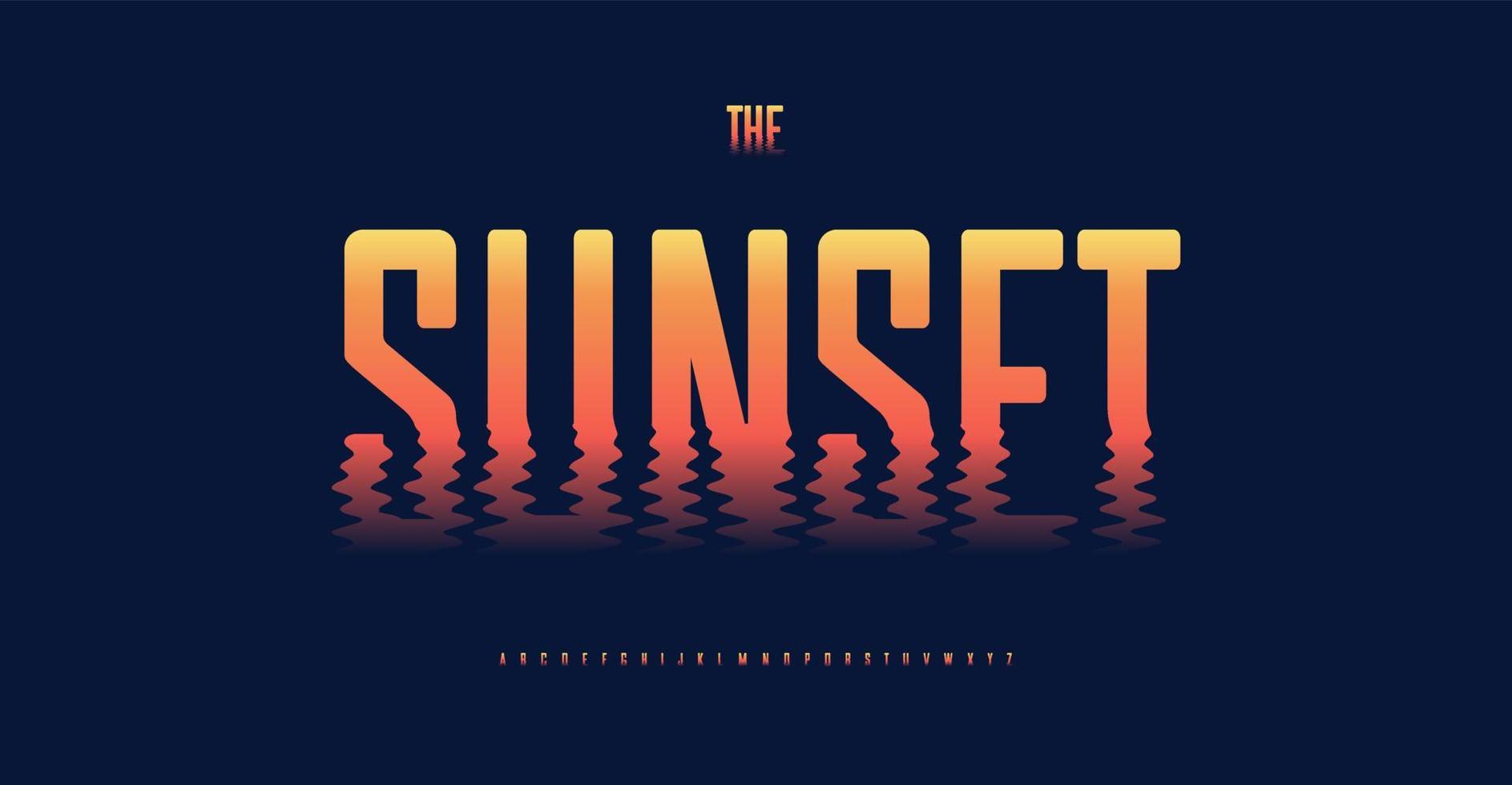
Dissolved letters in bright color font. Bold high tall alphabet with reflection on waving water surface. Creative typographic design for flood movie headline. Isolated vector typeset Pro Vector and Pro SVG